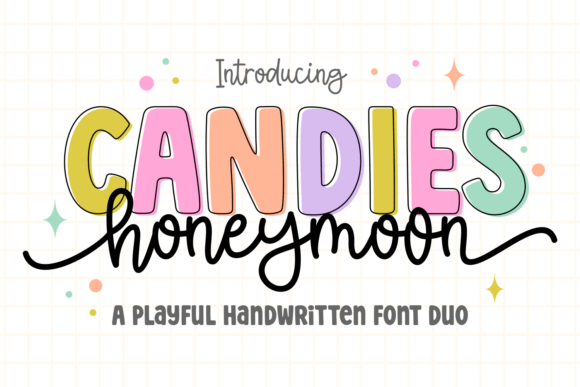
The Sweetest Font Duo: A Deep Dive into Candies Honeymoon
I’ll never forget the design project that led me to discover Candies Honeymoon. I was working on a branding campaign for a boutique bakery, and I was struggling to find the perfect font that captured the warmth and playfulness of their brand. The client wanted something that would make their packaging and social media posts feel both charming and distinctive. After hours of searching, I stumbled upon Candies Honeymoon, and it was love at first sight! 💕
A Perfect Blend of Playfulness and Sophistication
Candies Honeymoon is a delightful handwritten font duo that combines a bold, candy-inspired display with an elegant flowing script. This typeface brings warmth, joy, and personality into every design, making it ideal for premium branding, stylish invitations, boutique packaging, and curated social media aesthetics.
• ✅ The perfect blend of playfulness and sophistication
• ✅ Highly versatile and adaptable to various design projects
• ✅ Beautifully crafted with attention to detail
• ✅ Easy to read and understand, even in small sizes
• ⚠️ Limited availability of Cyrillic and non-English characters
• ⚠️ Some users may find the bold font a bit too bold for certain applications
3. Experiment with the OpenType features, such as stylistic alternates and glyphs, to add more personality to your text.
4. Explore the OpenType features, such as ligatures and stylistic sets, to add more flair to your text.
The Backstory Behind Candies Honeymoon
Candies Honeymoon was designed by a team of creatives who wanted to capture the magic of sweetness and charm in a font. The designers drew inspiration from classic candy packaging, elegant scripts, and modern digital design. The result is a font duo that is both playful and sophisticated, perfect for designers who want to add a touch of whimsy to their work.
Q: What is Candies Honeymoon?
A: Candies Honeymoon is a delightful handwritten font duo crafted to capture the magic of sweetness and charm.
Q: What type of projects is Candies Honeymoon suitable for?
A: Candies Honeymoon is ideal for premium branding, stylish invitations, boutique packaging, and curated social media aesthetics.
Q: Is Candies Honeymoon easy to read?
A: Yes, Candies Honeymoon is designed to be easy to read and understand, even in small sizes.